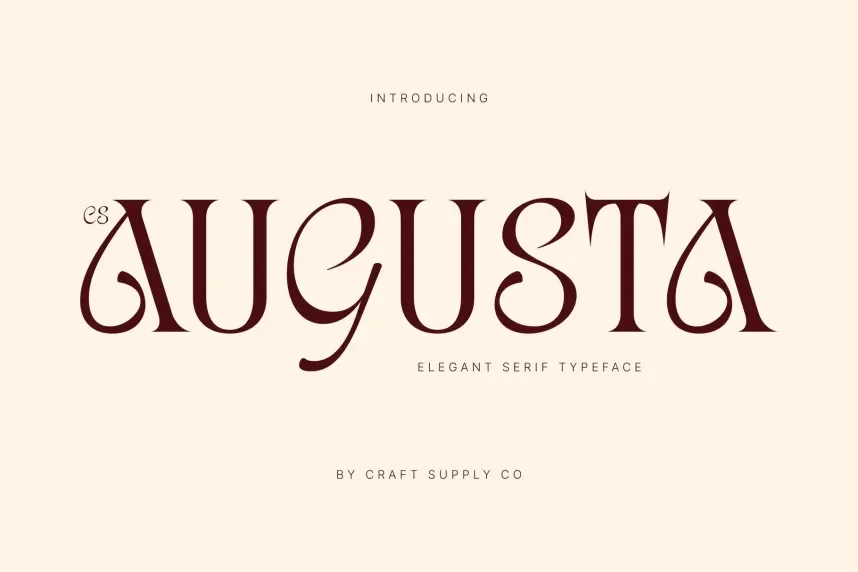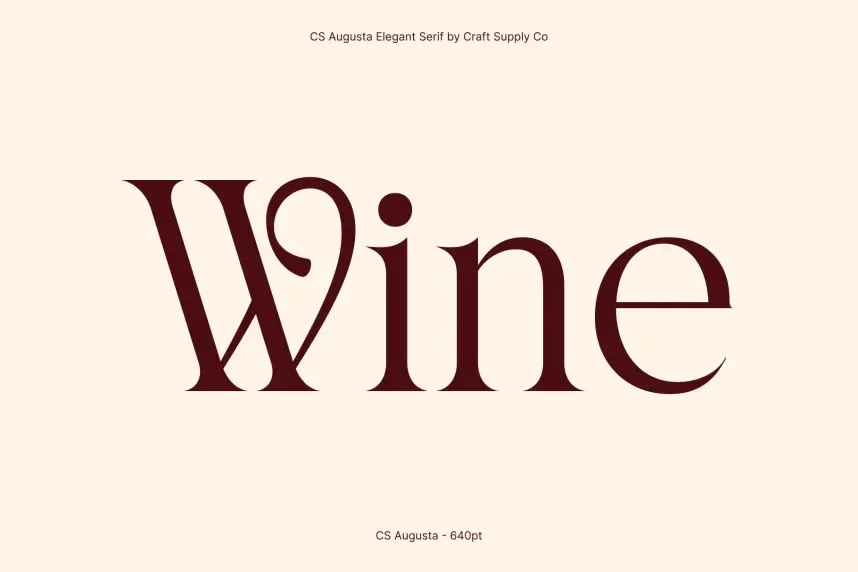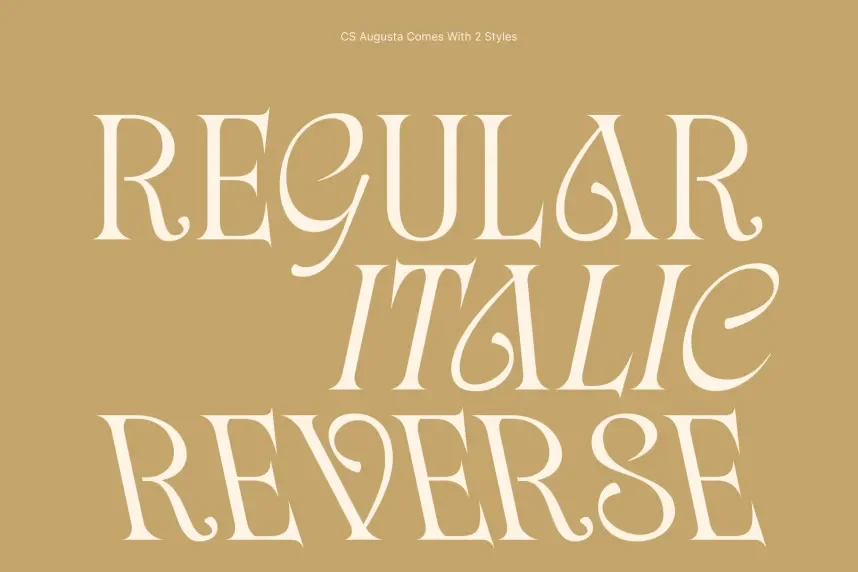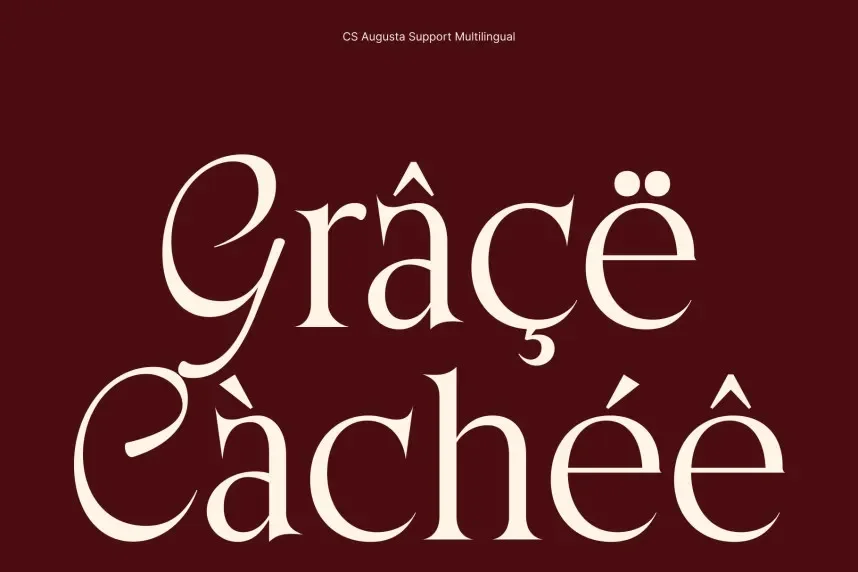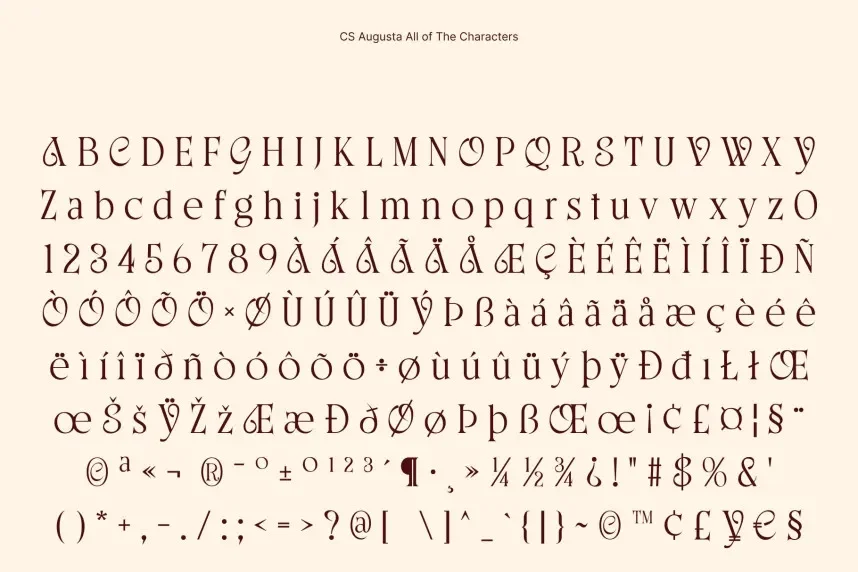
CS Augusta Font is a modern sans-serif typeface with clean lines and a minimalist design. Its smooth curves and consistent stroke weight make it a versatile choice for branding, web design, and any project that requires a sleek, contemporary look.